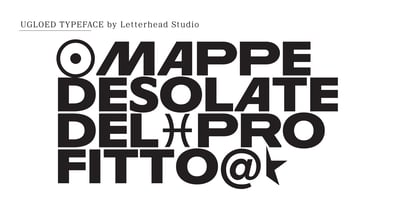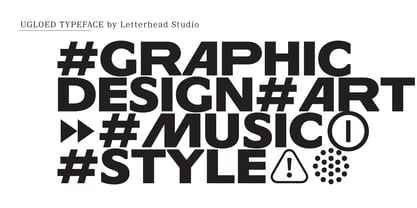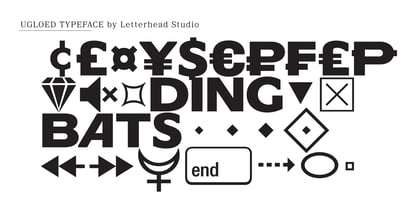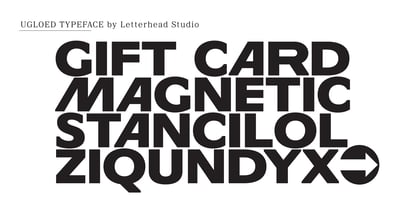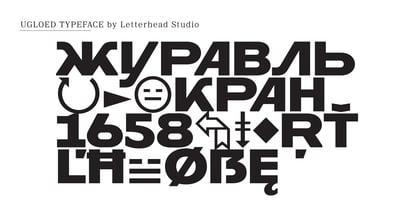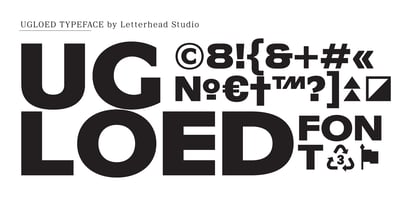
The Ugloed Font Family was designed by Valery Golyzhenkov and published by Letterhead Studio-VG. Ugloed contains 1 styles. More about this family
Ugloed (Corner-eater)—makes straight paths on lawns and nibbles at sharp corners. Sometimes it turns into a chicken. Take a Corner-eater, he's a good one. Well, as for the font, the font tries to be attractive, but not very noticeable. The letters are the same height, but the width of some of them suddenly grows out of order. The glyph set contains Cyrillic, extended Latin, and a significant amount of dingbats.
Ugloed